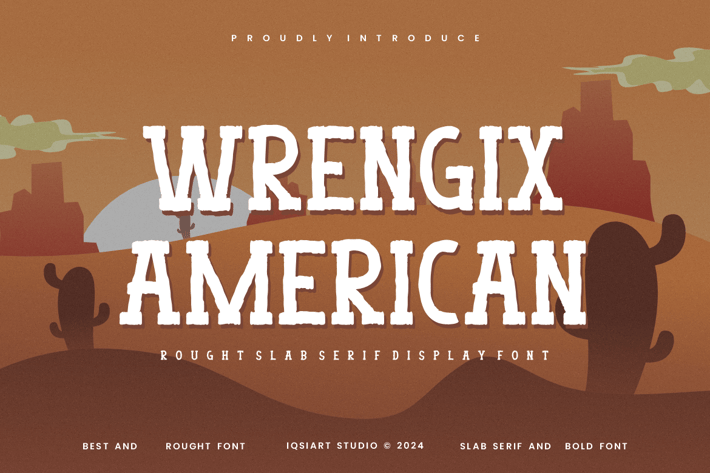
Wrengix American - Tropical & Western Font
Wrengix American Font is a tropical and authentic display font.
This font can be used for your various needs.